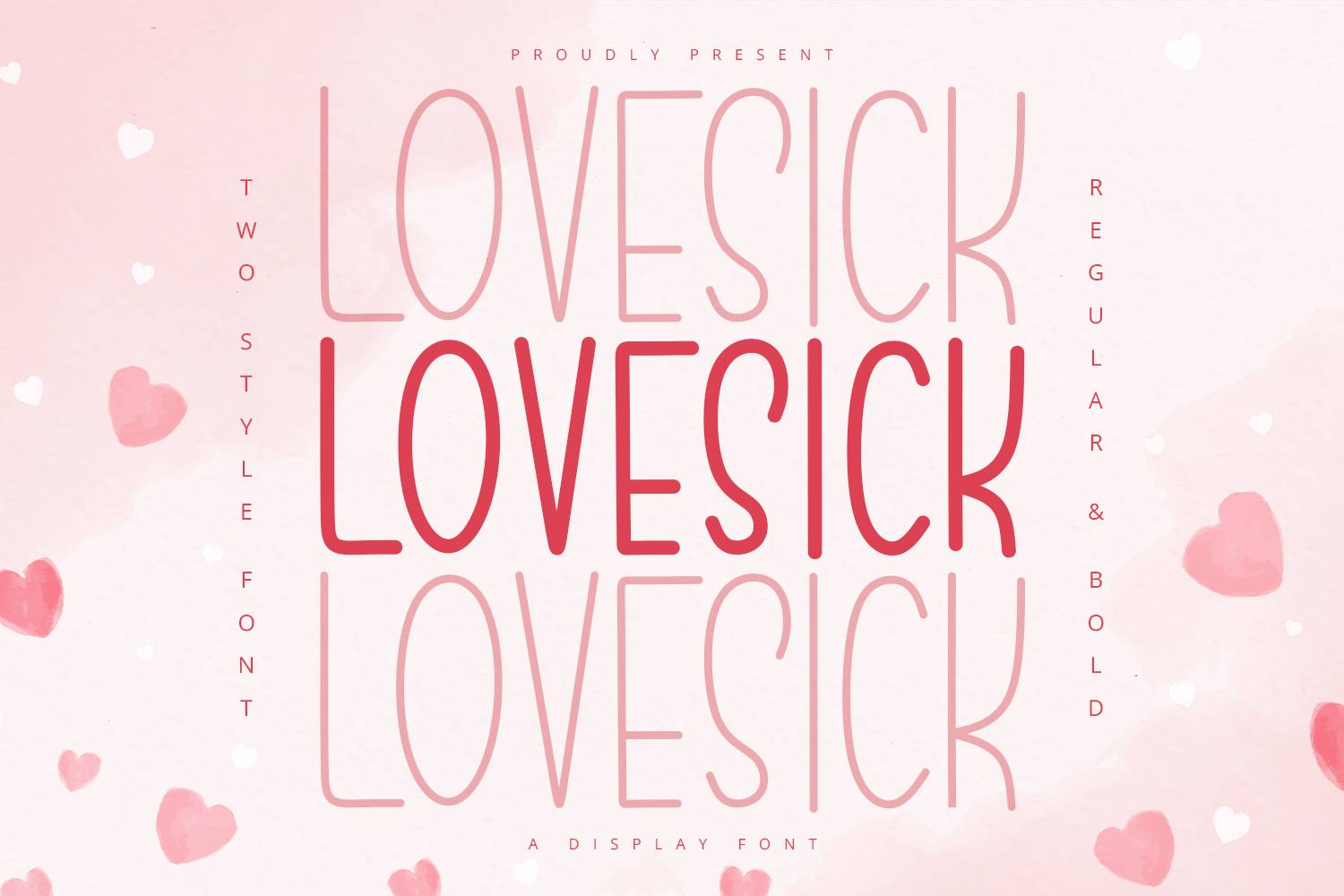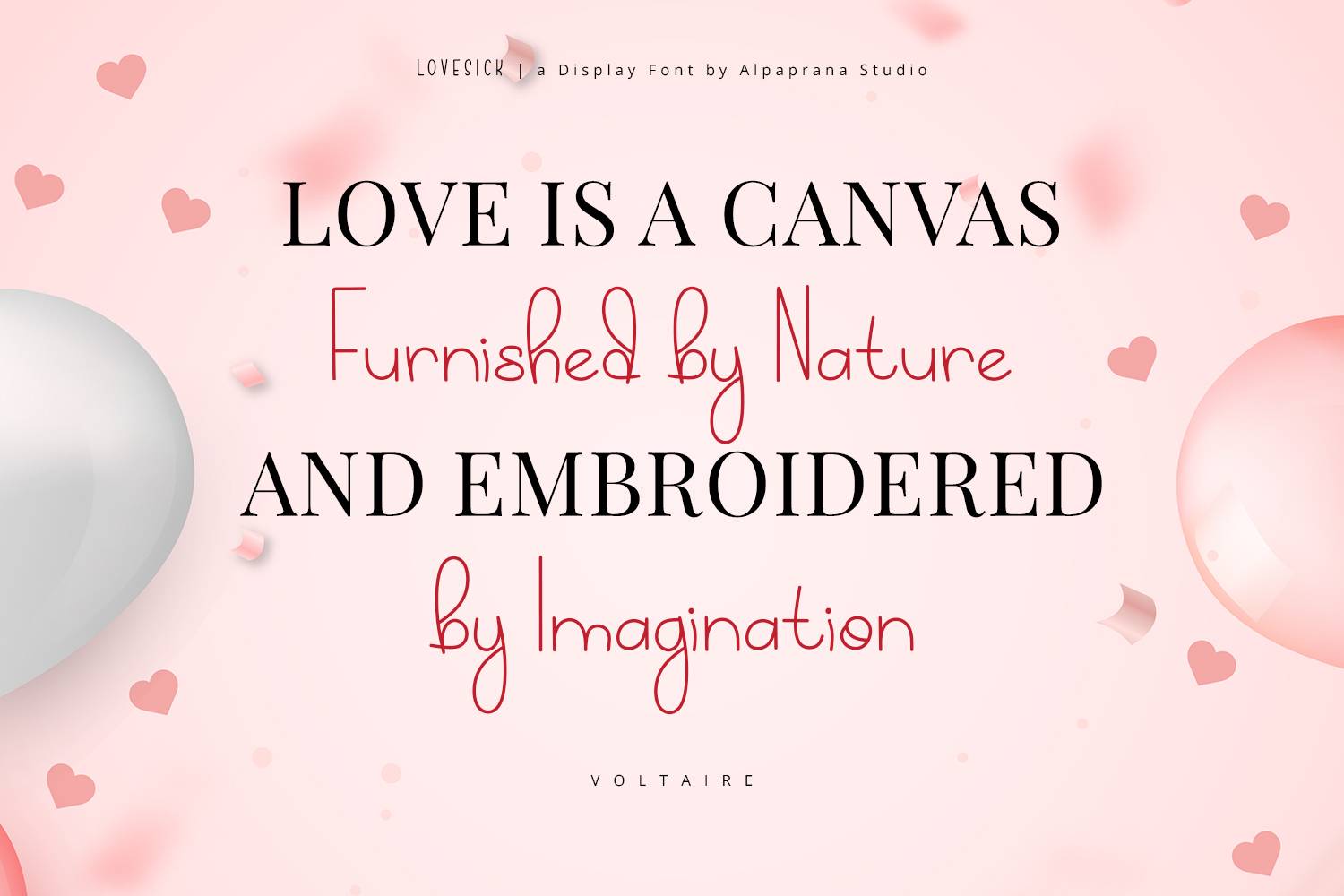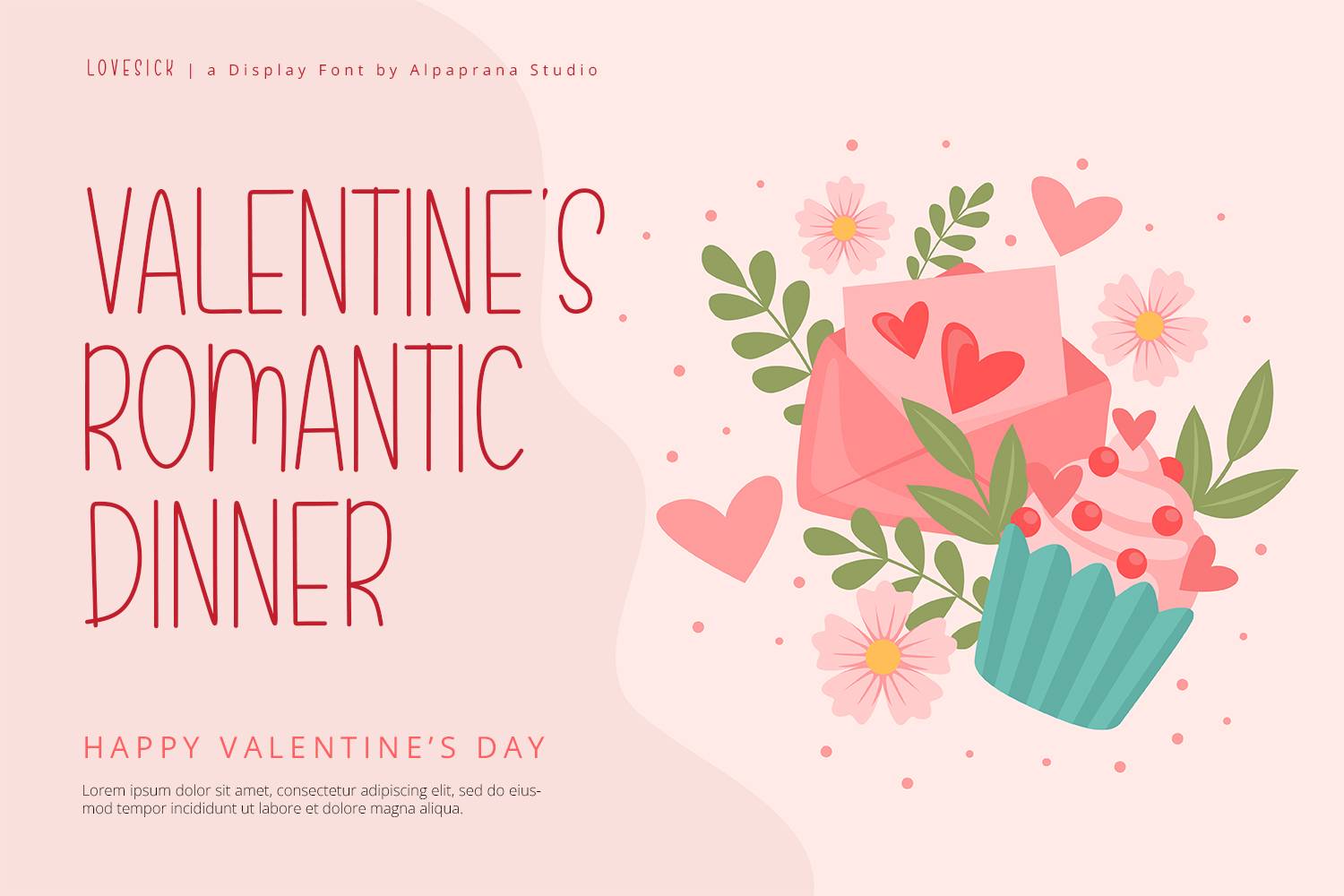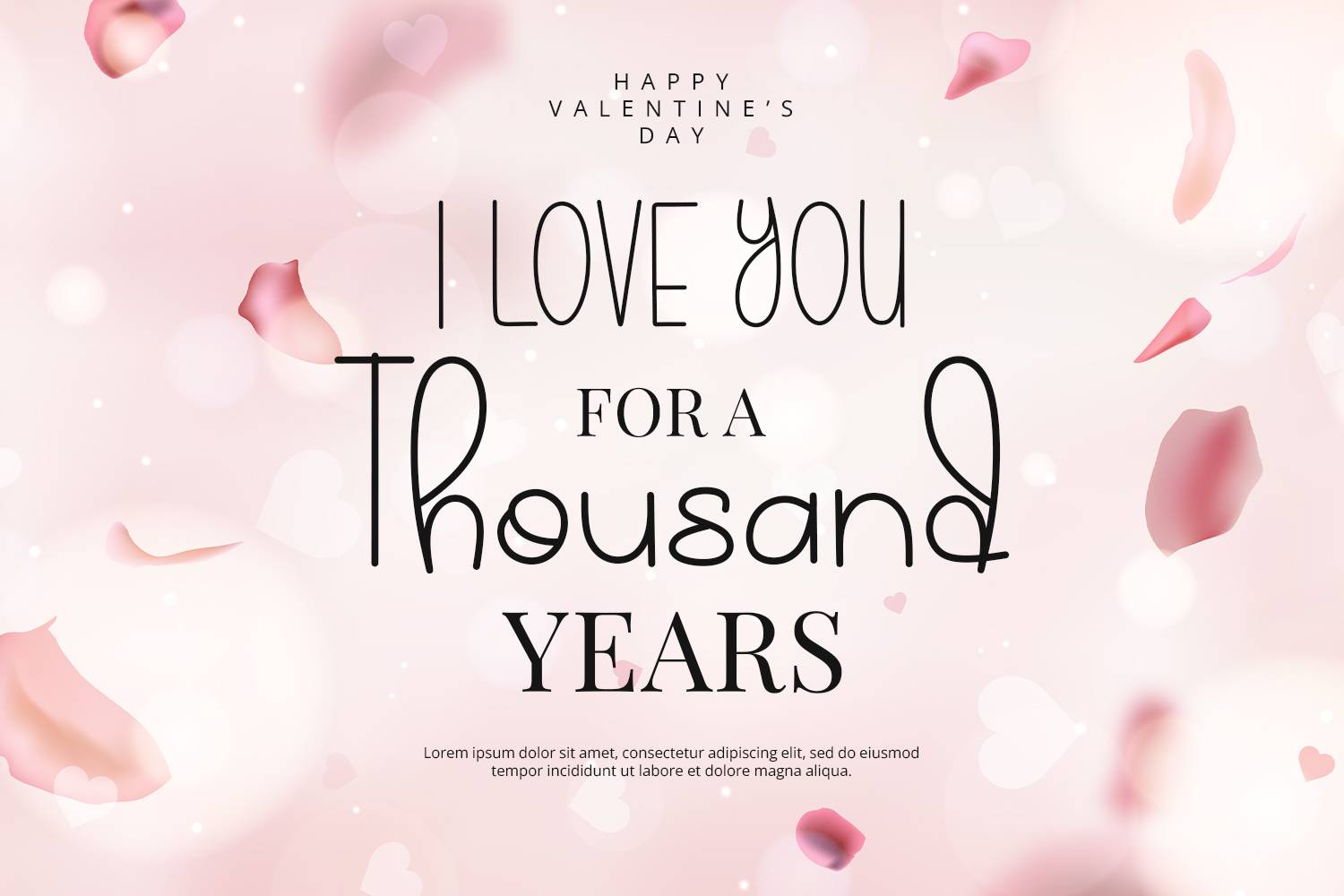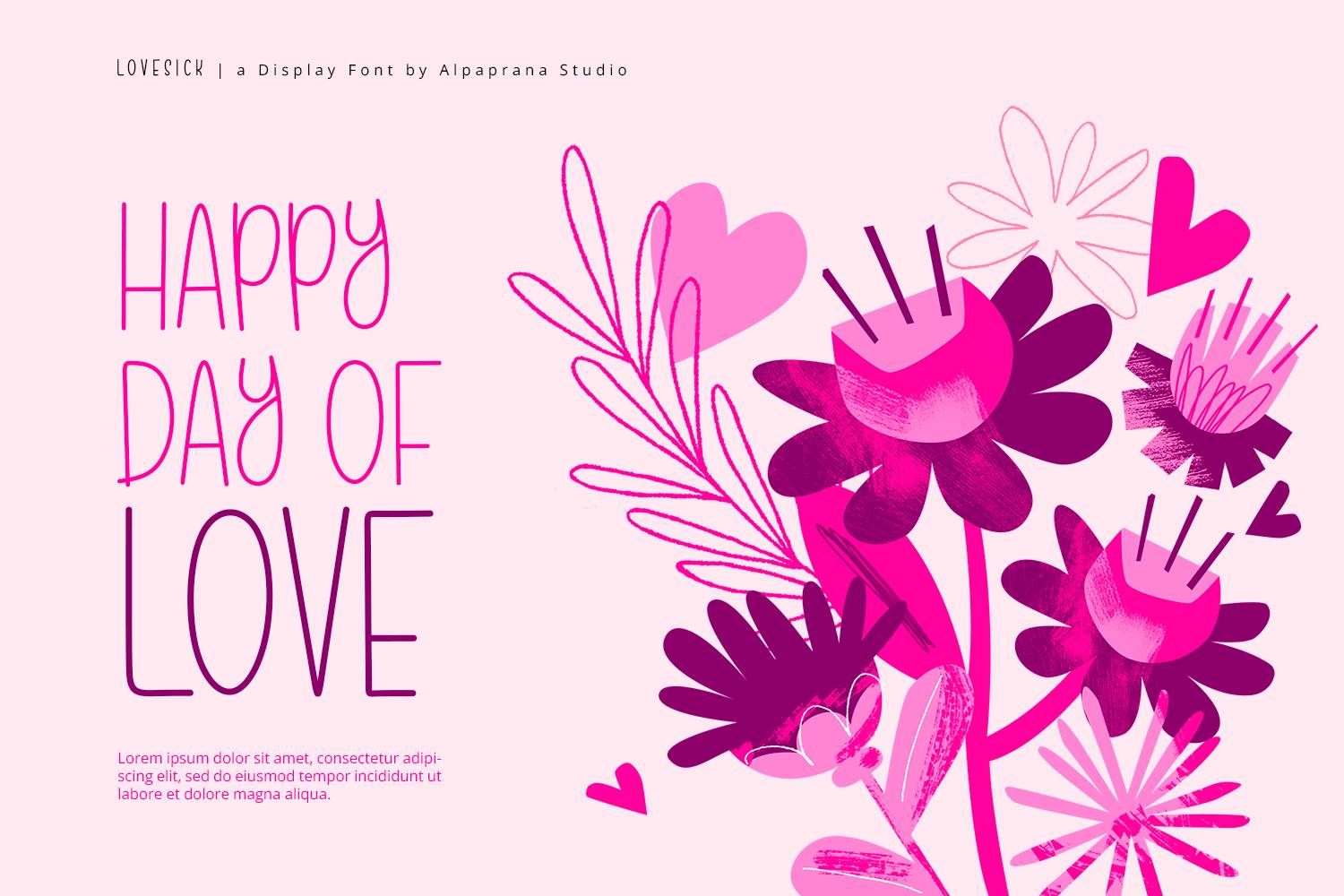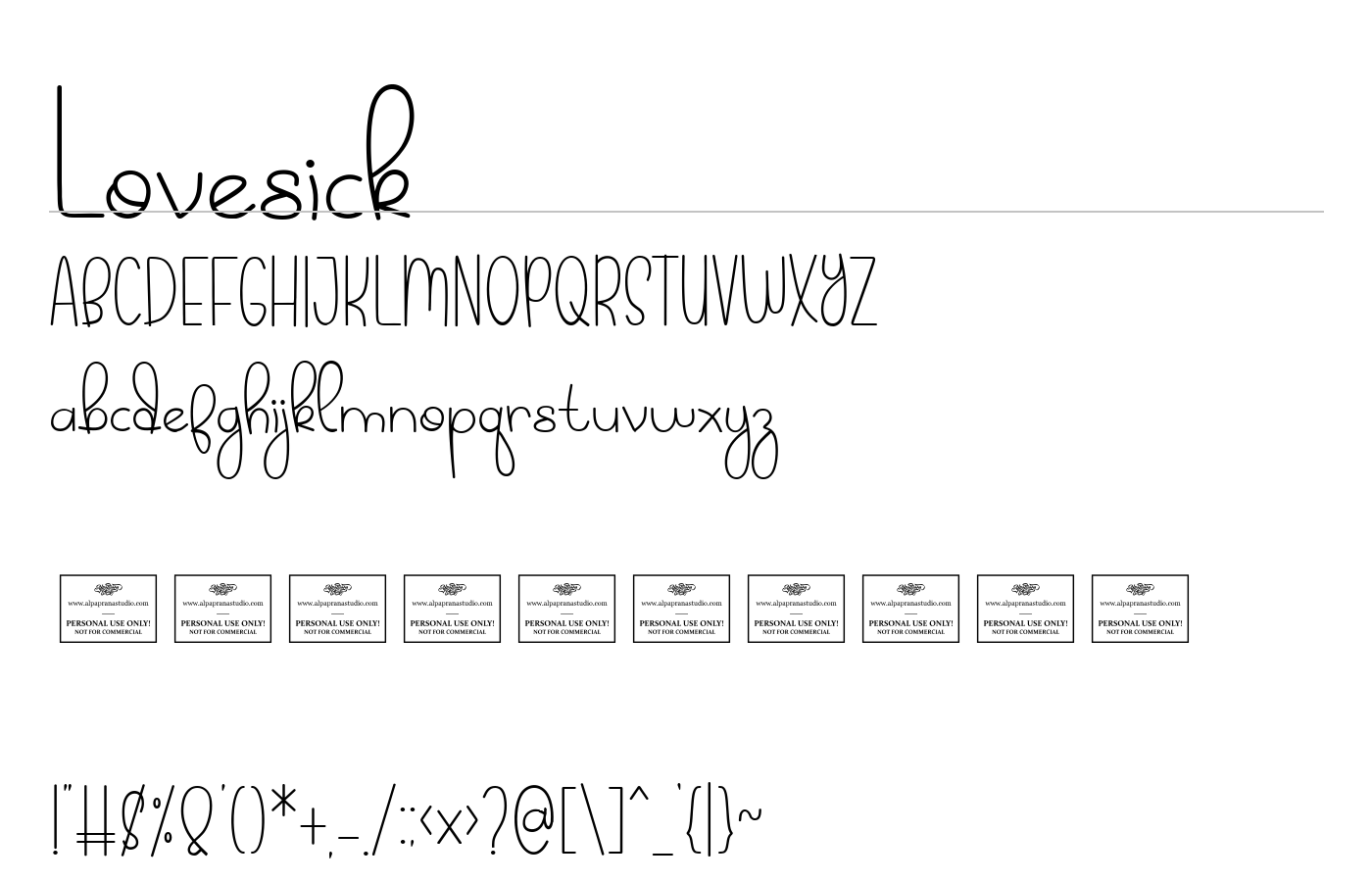
Lovesick is a quirky, handwritten sans serif font characterized by its tall, narrow letterforms and delicate, thin strokes. Its playful yet elegant style makes it perfect for creative projects such as invitations, greeting cards, and expressive branding that seek a personal, whimsical touch. This font works best in headlines or short text where its unique charm can shine without losing legibility.
Lovesick Font